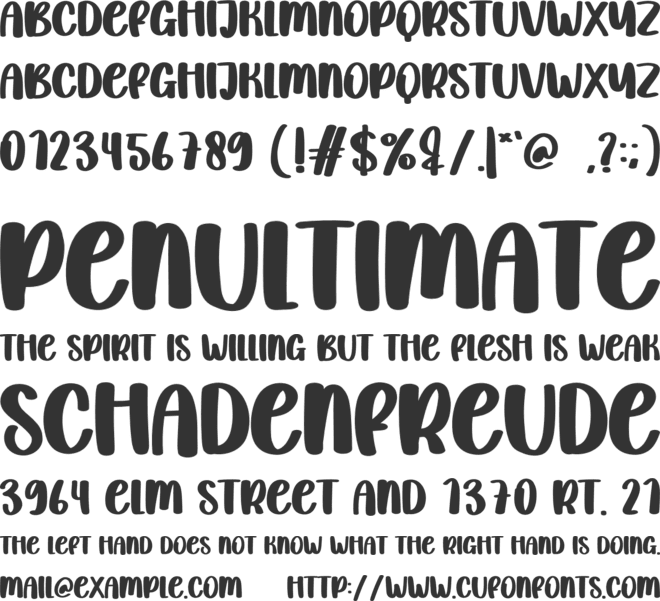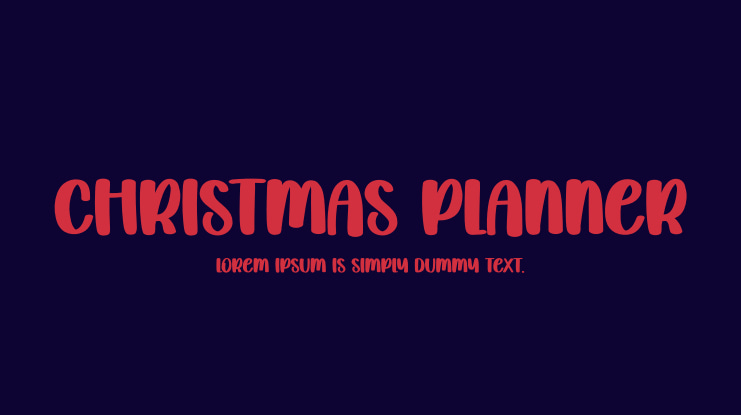
Christmas Planner Font
Our latest handwriting-style letters are perfect for various purposes such as wall displays, wedding invitations, social media logos, advertisements, product packaging, labels, photography, watermarks, invitations, stationery, and any project that requires elegant handwriting.